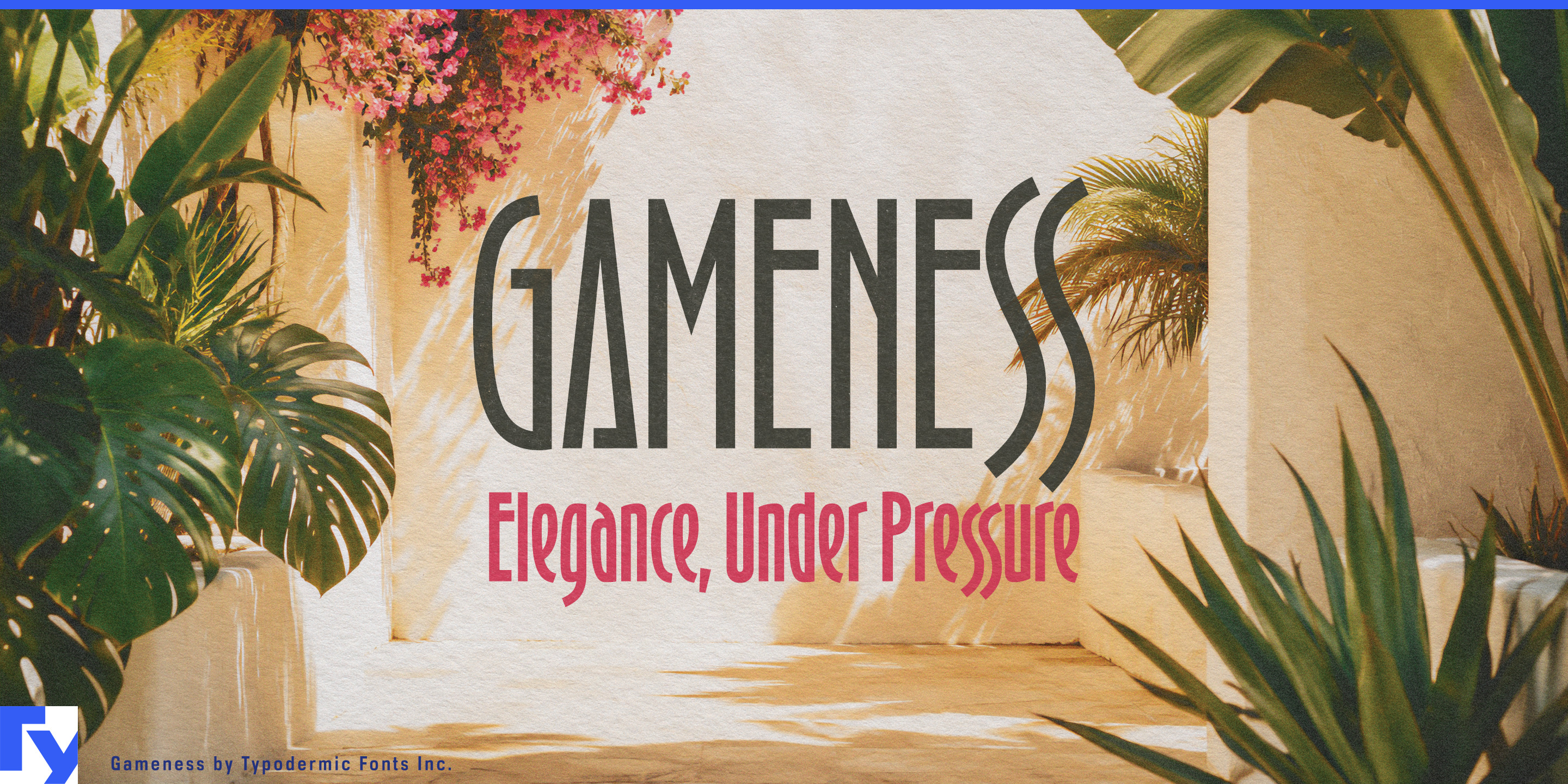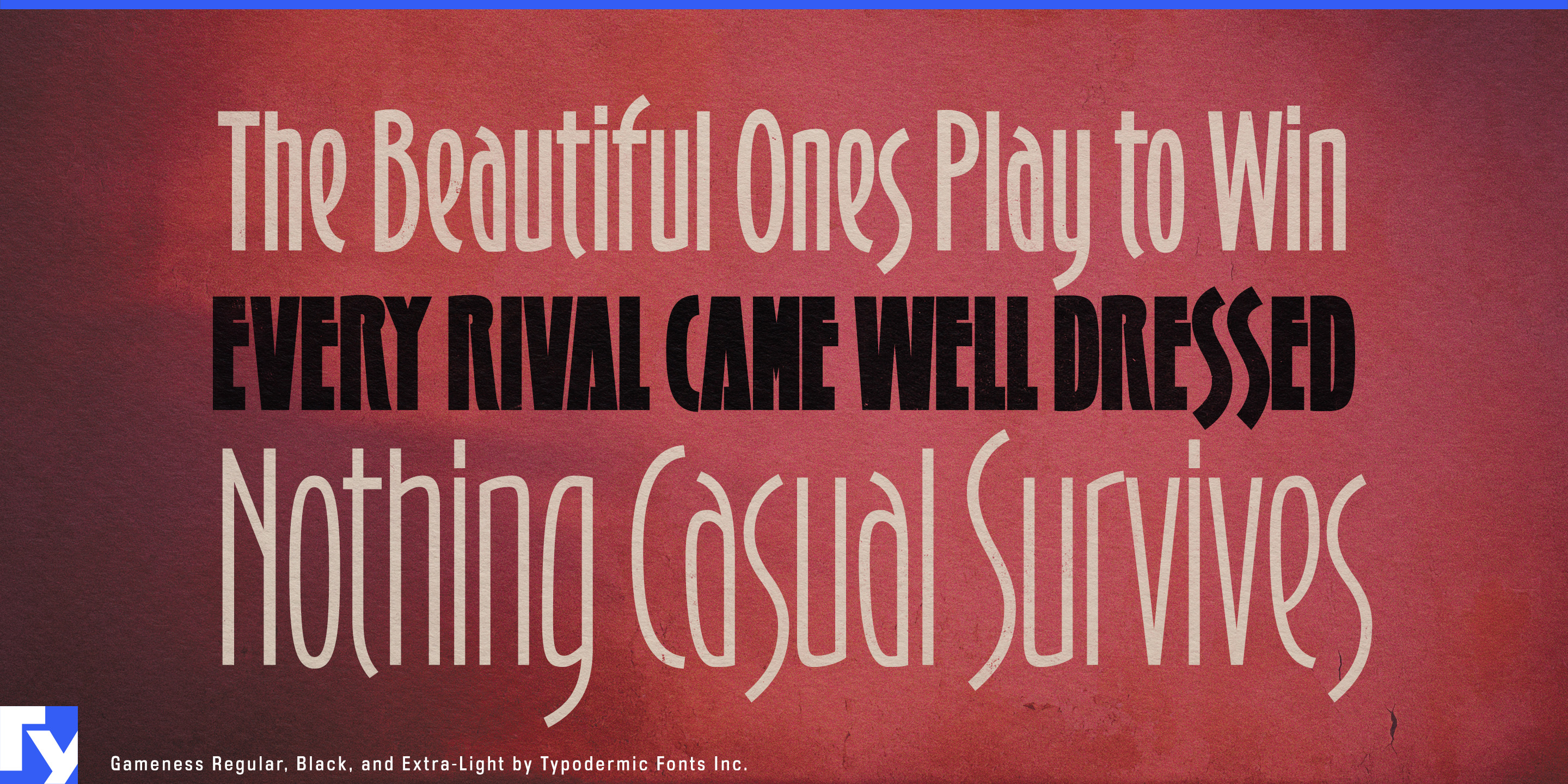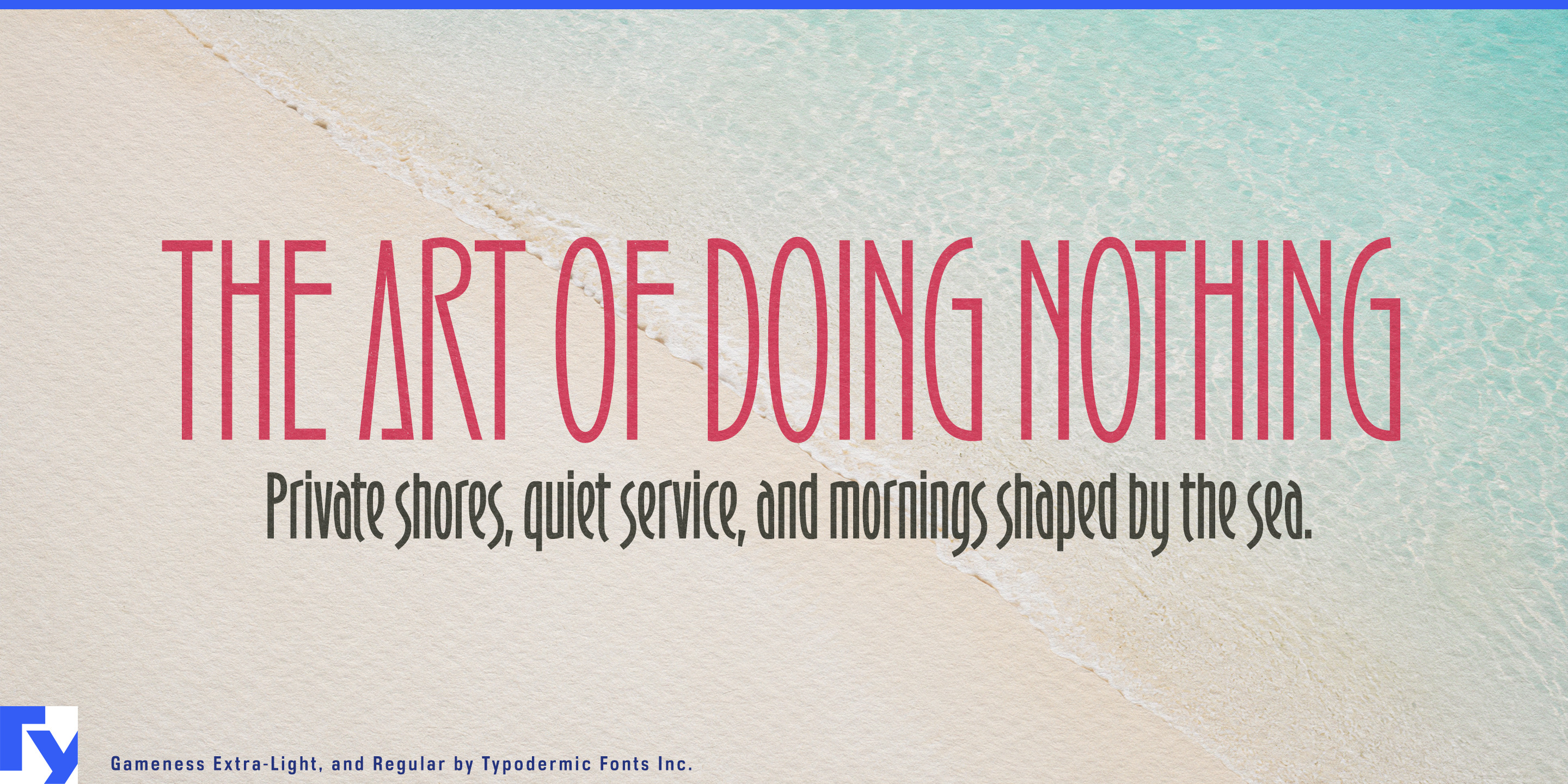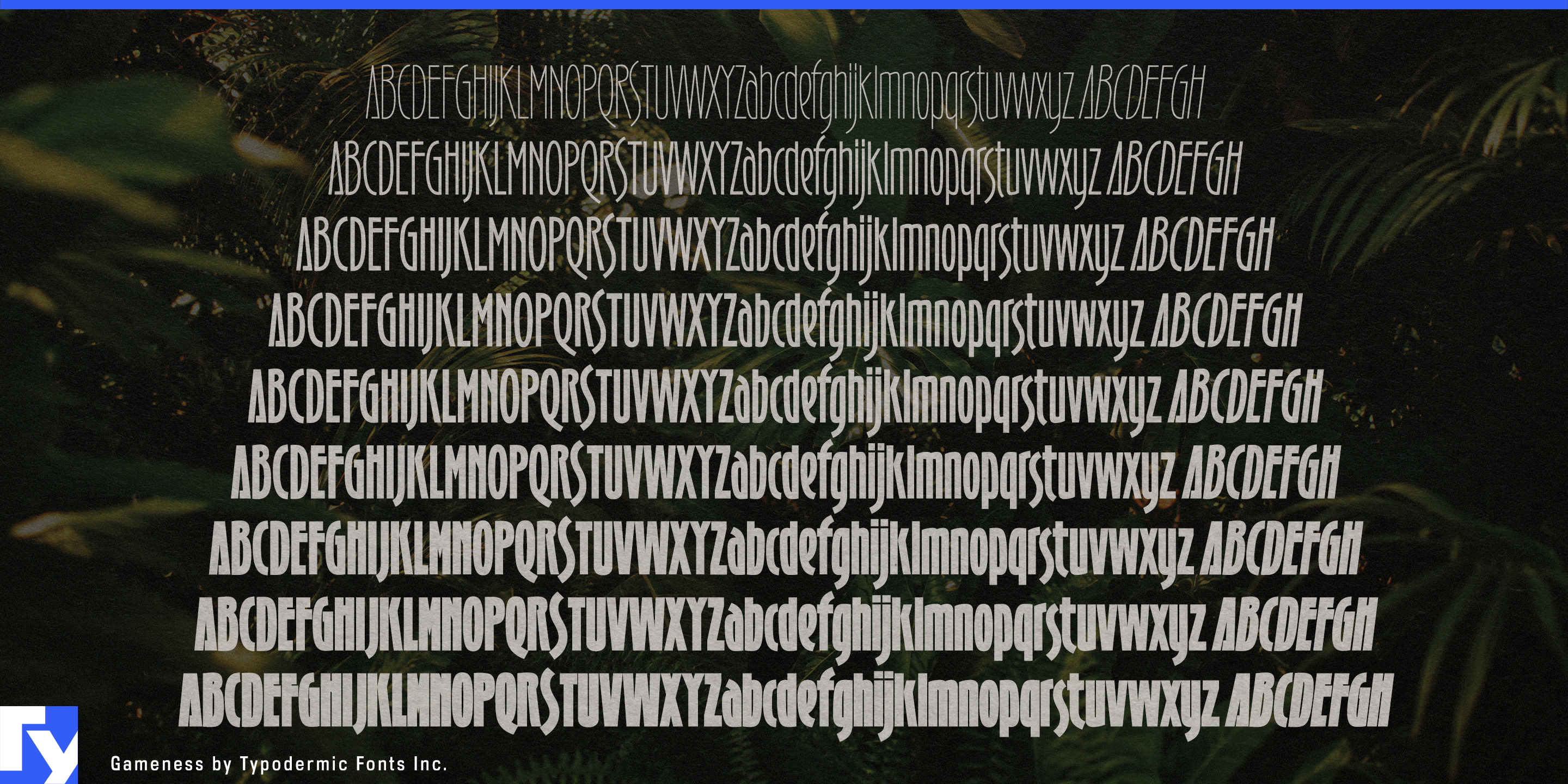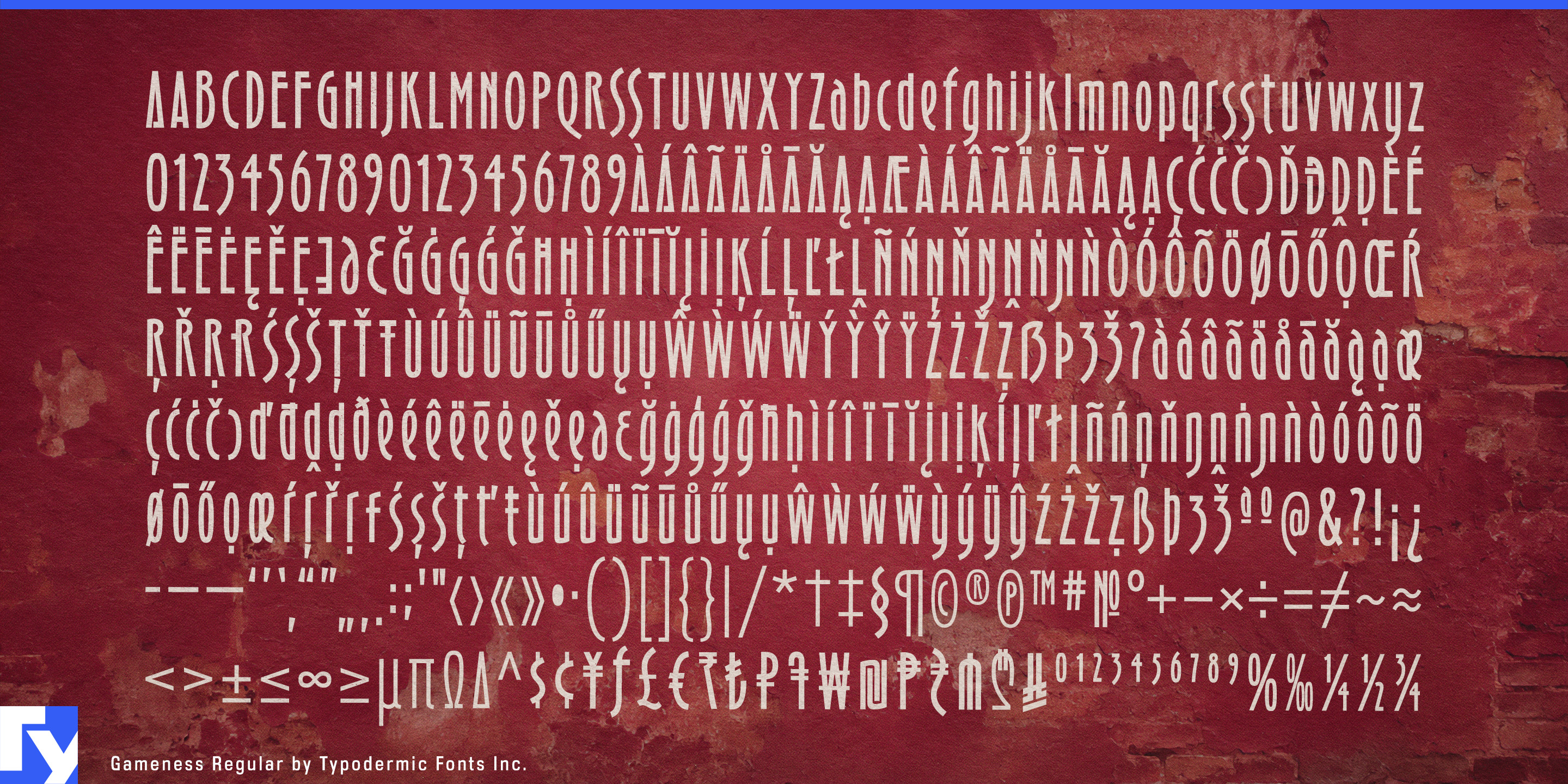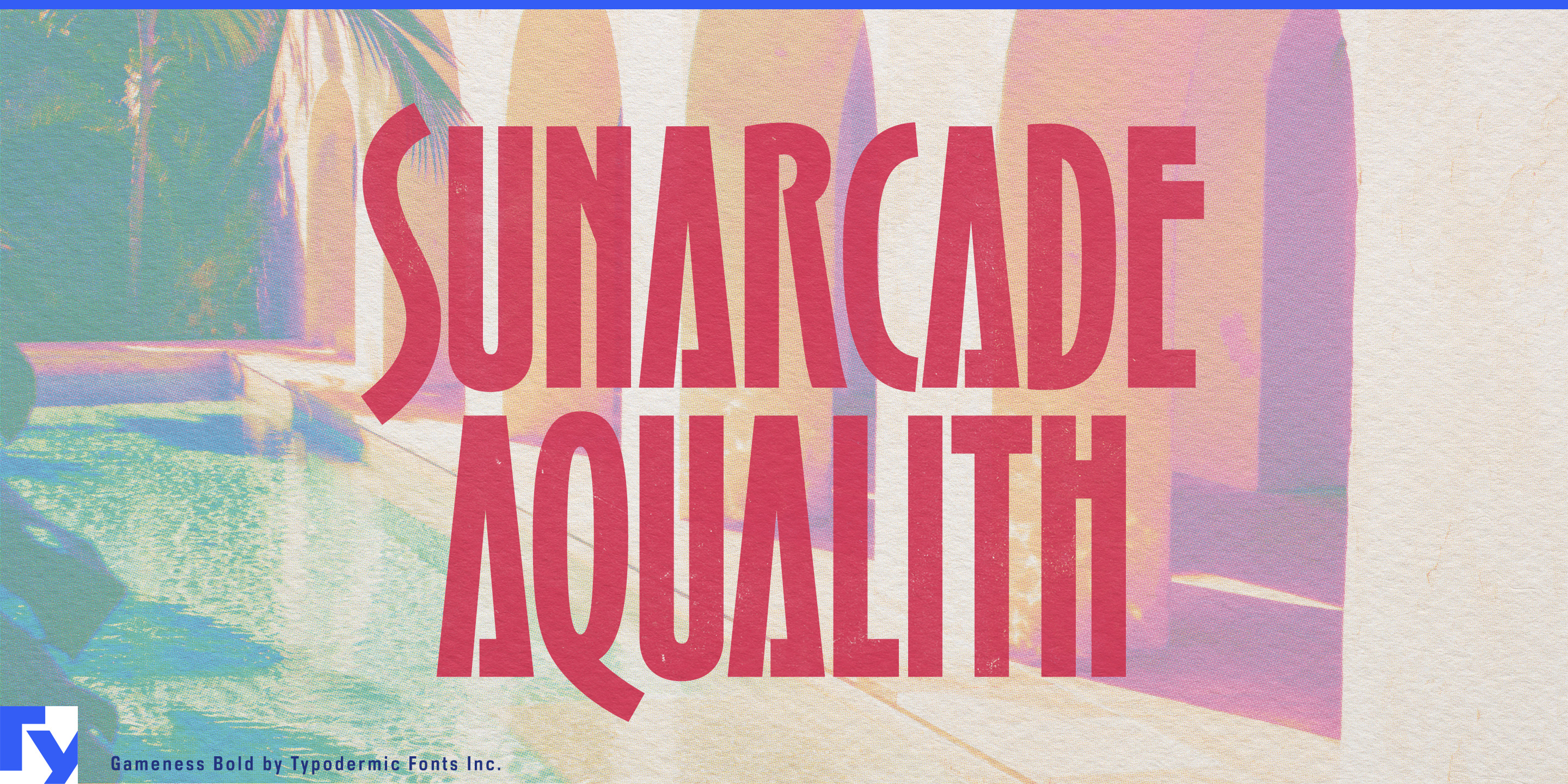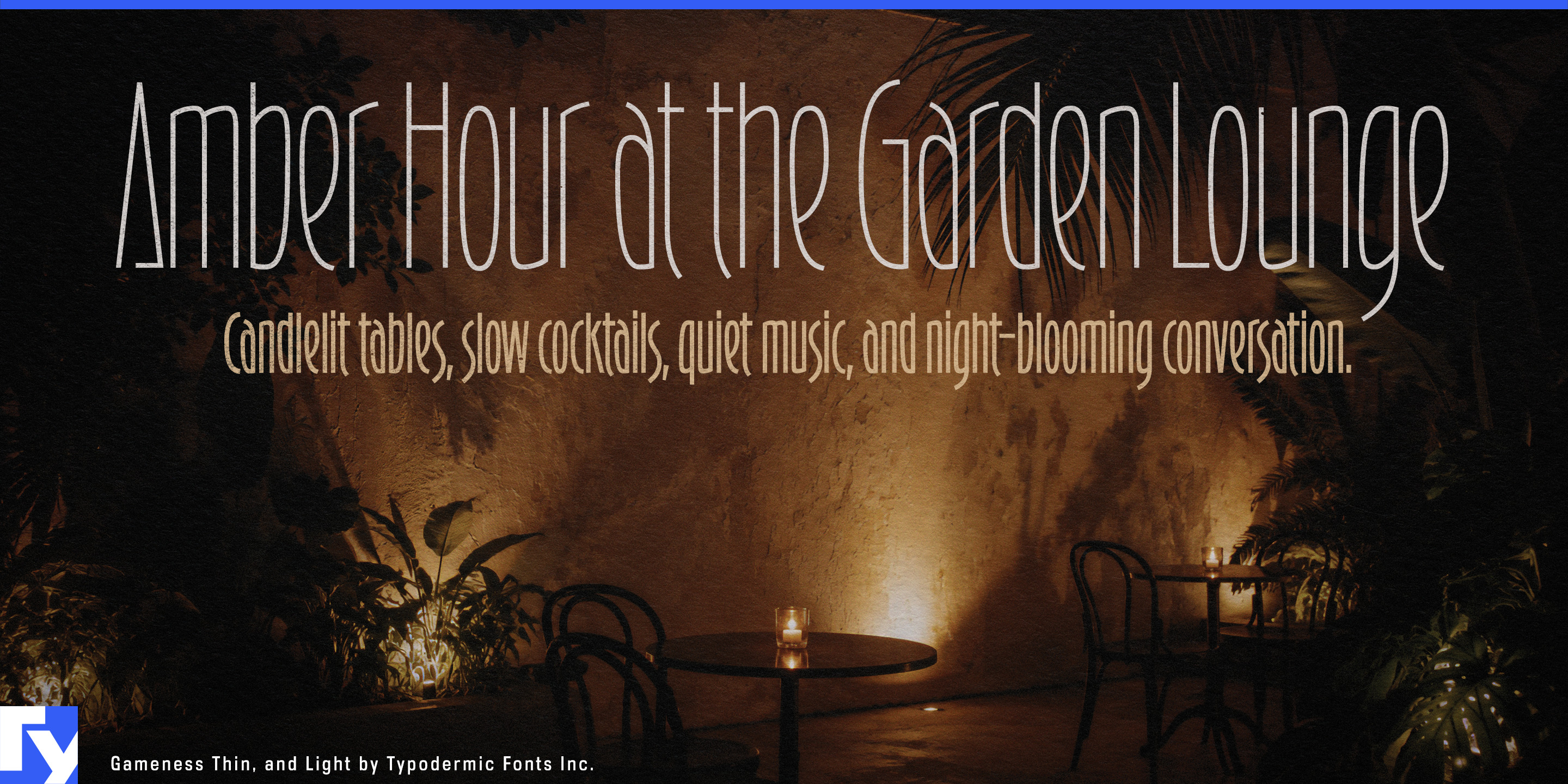
Gameness
A glamorous Art Deco headline is easy to find. The harder problem begins when that headline has to become an identity system. A resort, restaurant or luxury venue may need whisper-thin lettering for a spa treatment or wine list, a stronger voice for menus and signs, and something dramatically heavier for an event poster or nightclub entrance. Gameness stretches the same narrow Deco construction across nine weights from Thin to Black, with matching italics, giving designers far more room to change the volume without changing the visual language.
Luxury resorts are especially natural territory. A single property may contain a spa, pool club, cocktail bar, restaurants, boutiques and evening events, each requiring a different typographic emphasis. Gameness can move from fine suite names and treatment headings to substantial venue identities, seasonal programs and large promotional titles while keeping the property visually connected.
Restaurants make particularly good use of that range. Fine-dining rooms, hotel restaurants, modern brasseries and destination dining venues need typography for restaurant names, tasting menus, wine lists, private-dining cards and special-event graphics. Lighter weights bring elegance to short menu headings; heavier styles give a restaurant name enough presence for windows, exterior signs and promotional material. The narrow proportions also work well in menu columns and tall formats where horizontal space is limited.
Cocktail bars, supper clubs, hotel lounges and cabaret venues can push farther into the heavier end of the family. Heavy and Black can turn a short event title into a compressed architectural shape, while Thin or Extra-Light can return on the drinks list or reservation card. Gameness can suggest Art Deco nightlife without forcing every project into a costume version of the 1920s.
Luxury travel, fragrance, jewelry and fashion open further territory. Boutique cruises, yacht charters and luxury rail journeys can use Gameness across itinerary covers, cabin names, restaurant graphics and evening programs. Perfume names, beauty collections, jewelry campaigns and runway graphics can move from restrained light weights to much heavier promotional typography while remaining recognizably part of the same system.
Gameness has the vertical elegance associated with Art Deco display lettering, but its unusually broad weight range makes it more than a one-line period accent. Eighteen styles, including matching italics and a full lowercase, let one visual language move from a quiet spa menu to a restaurant façade, a perfume label to a rooftop event poster, or a resort room card to the name above the bar.